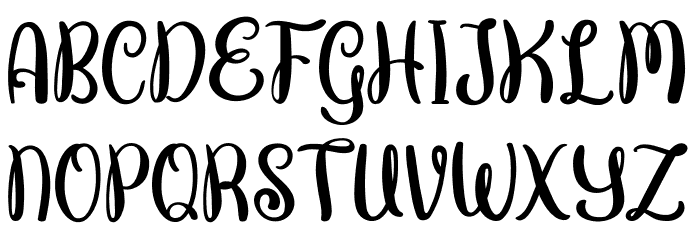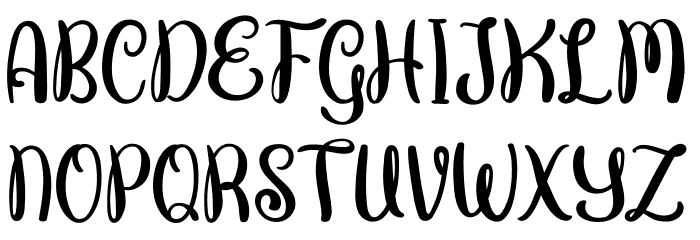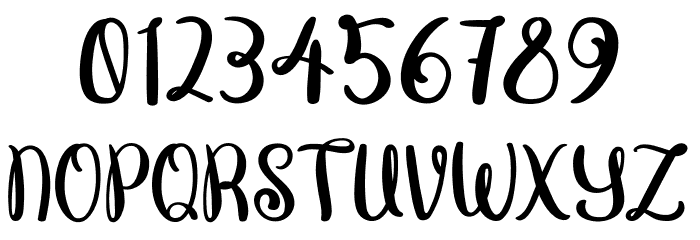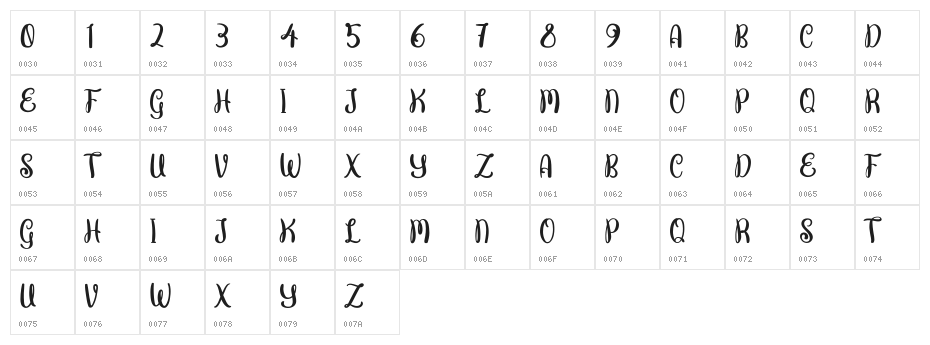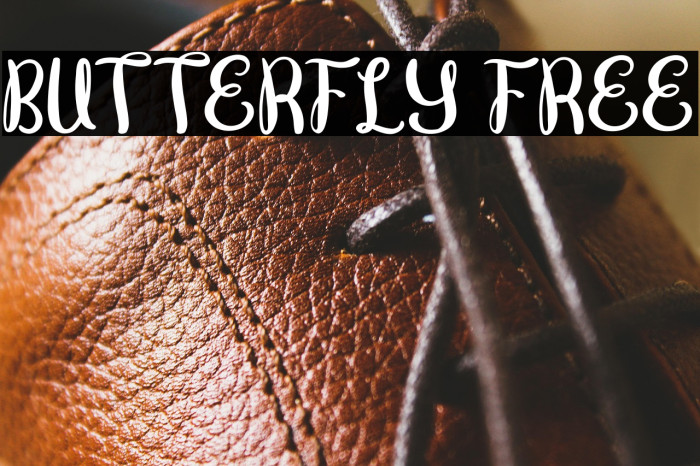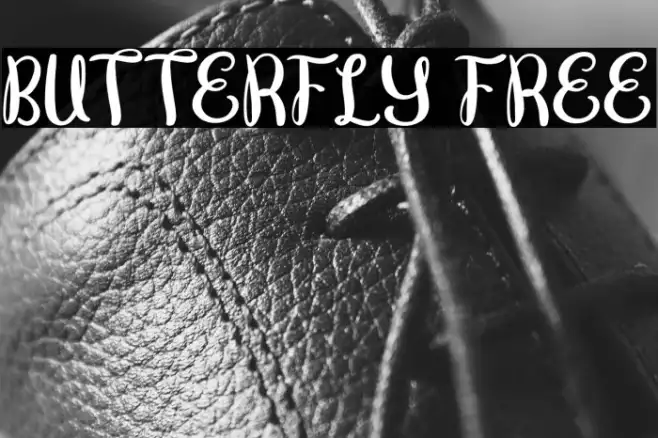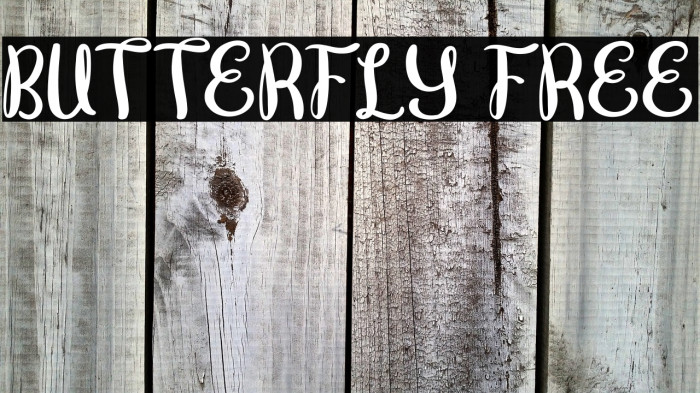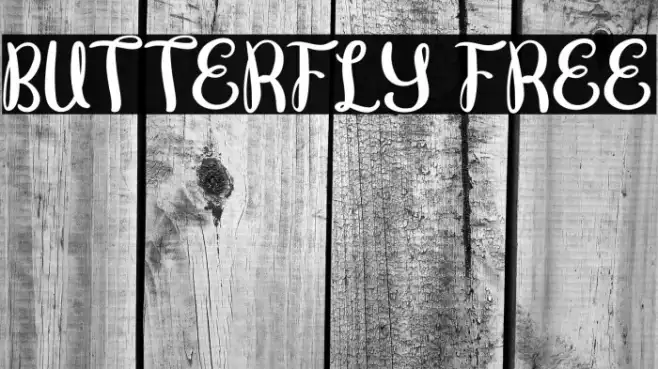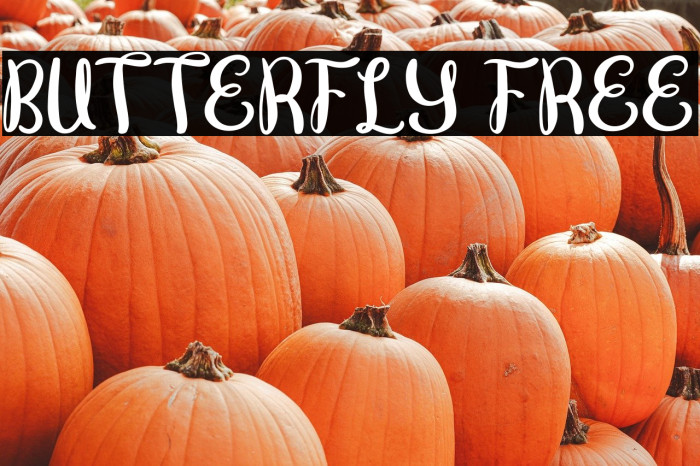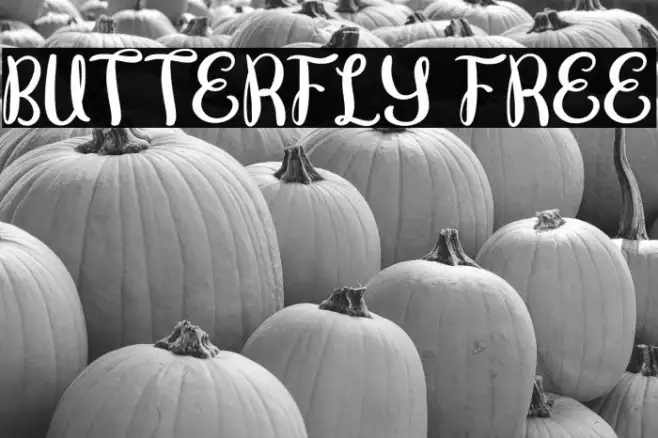
Butterfly FREE Font
This font features a whimsical and playful script style with a hand-drawn appearance. The characters are bold and have a flowing, cursive design that adds a sense of movement and elegance. Each letter is distinct, with unique loops and curves that give the font a lively personality. The numbers and special characters maintain the same playful aesthetic, ensuring consistency across all text elements. This font is ideal for projects that require a touch of creativity and flair, such as invitations, greeting cards, or branding materials that aim to convey a friendly and approachable tone.
A whimsical and playful script font with a bold, hand-drawn style.
- Proposed Projects: Ideal for invitations, greeting cards, branding materials, and creative projects.
- Use Case: Headlines, Logos, Invitations